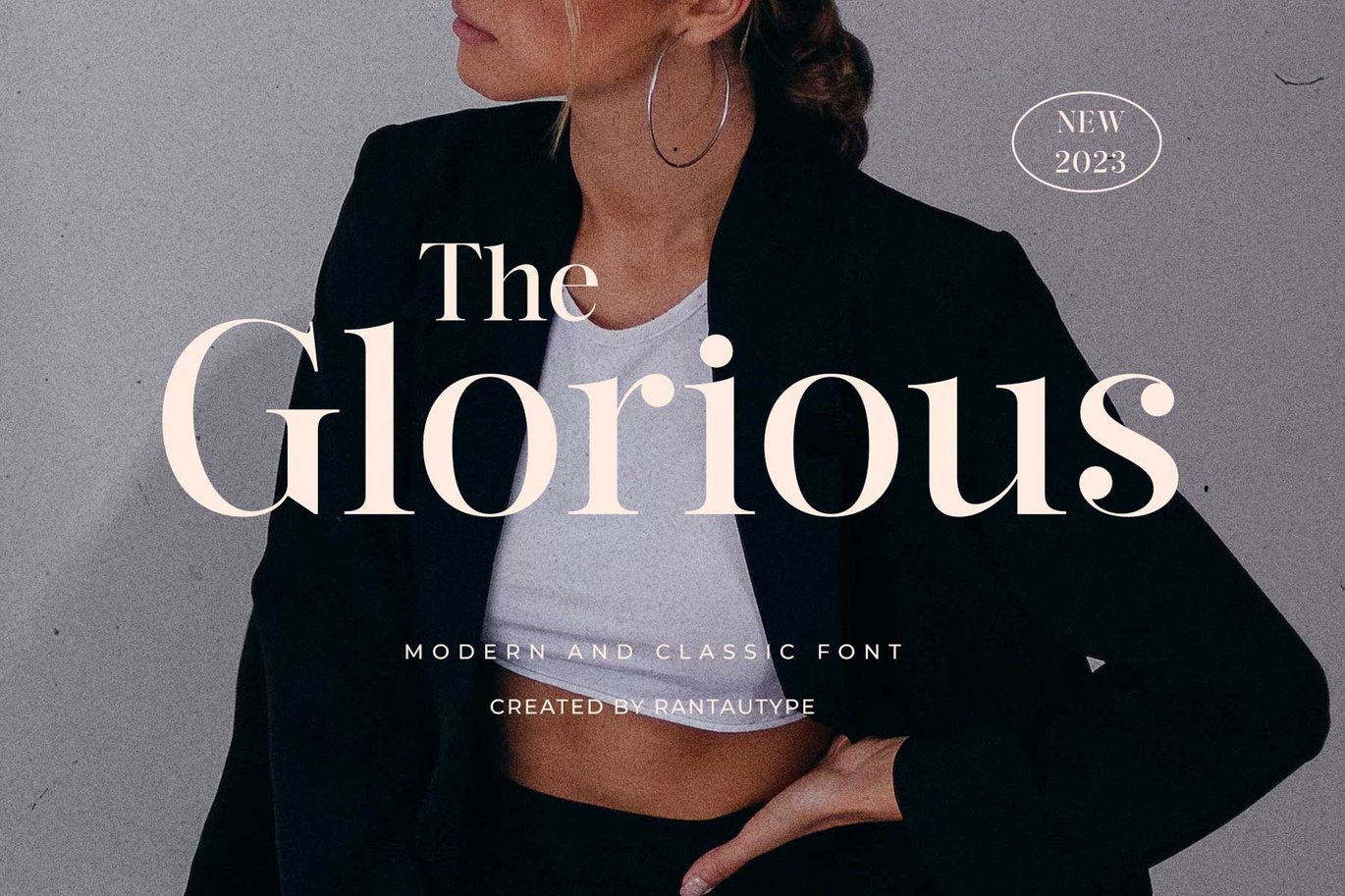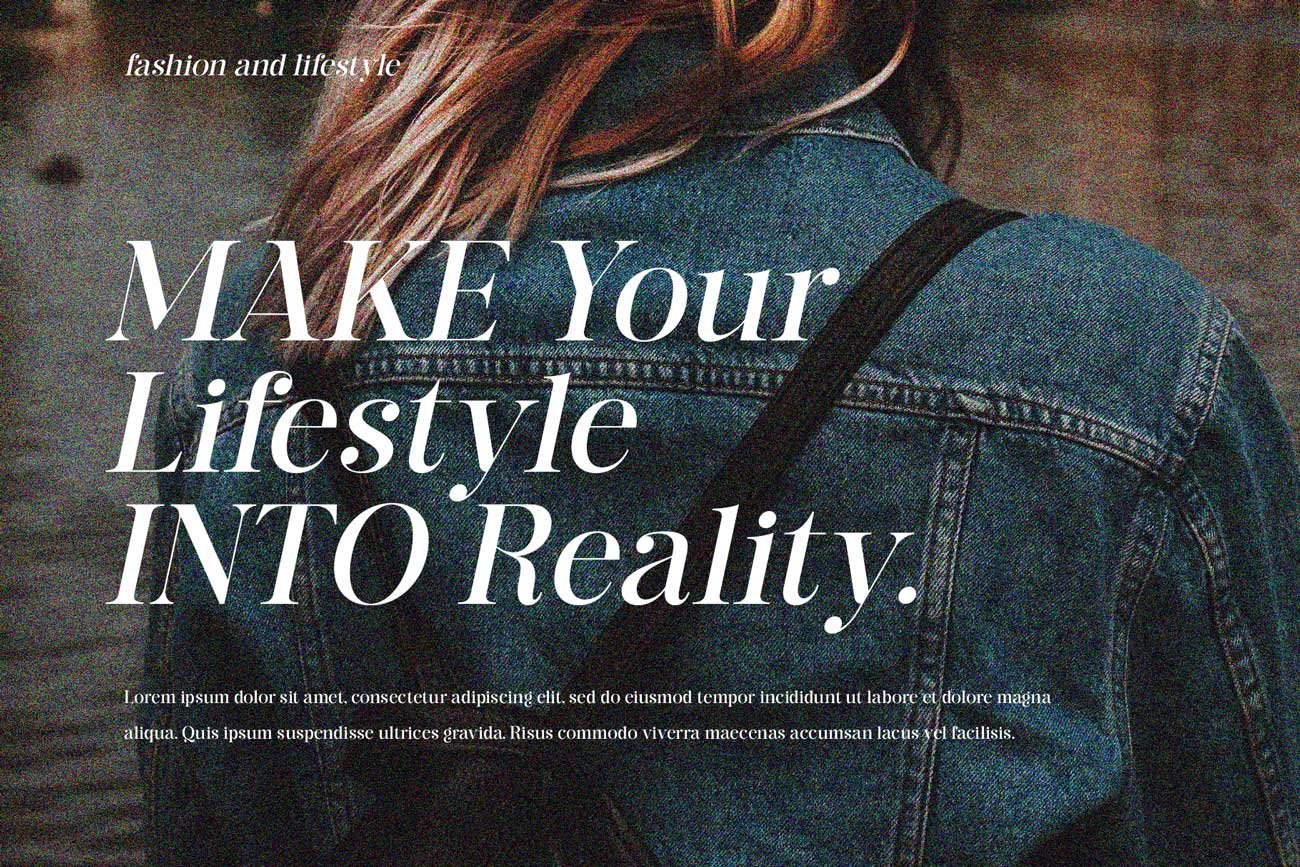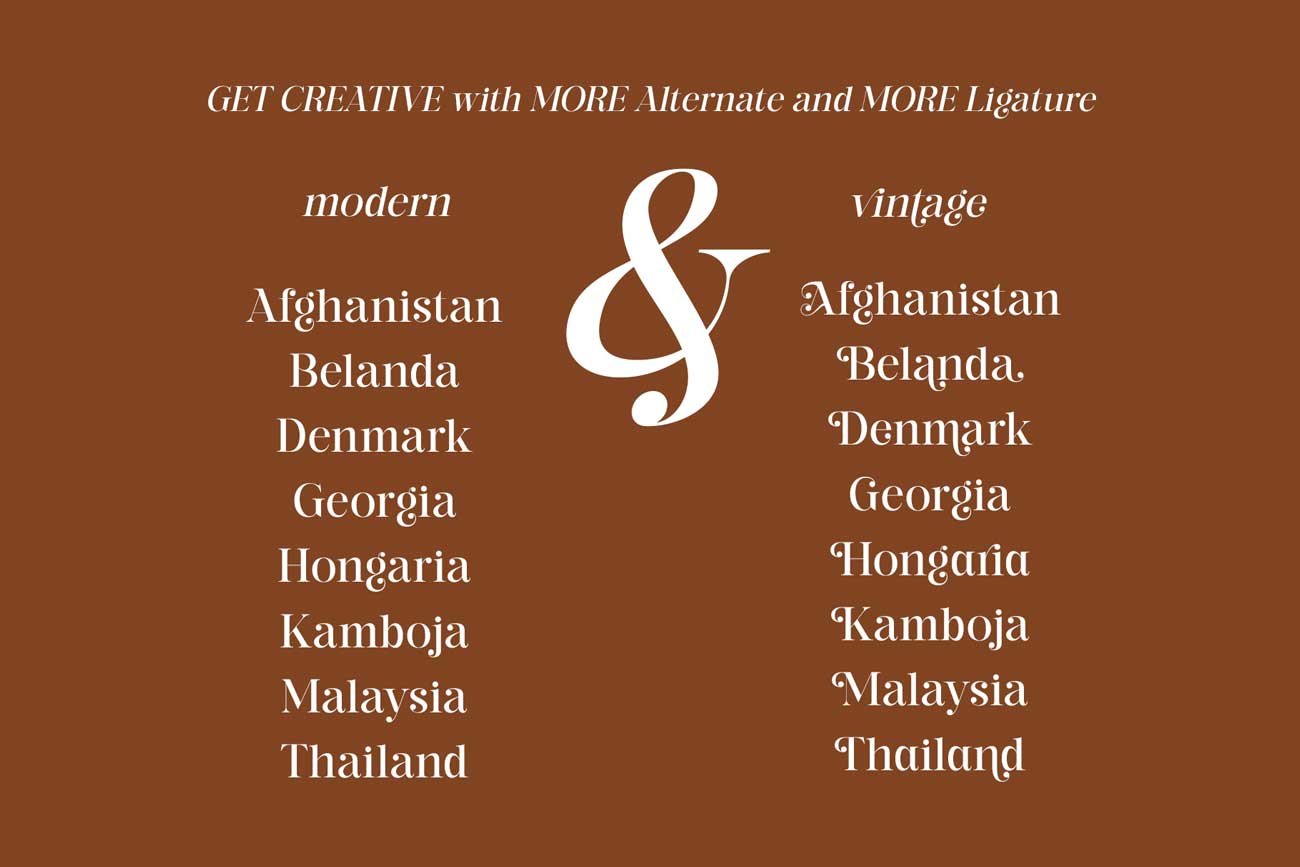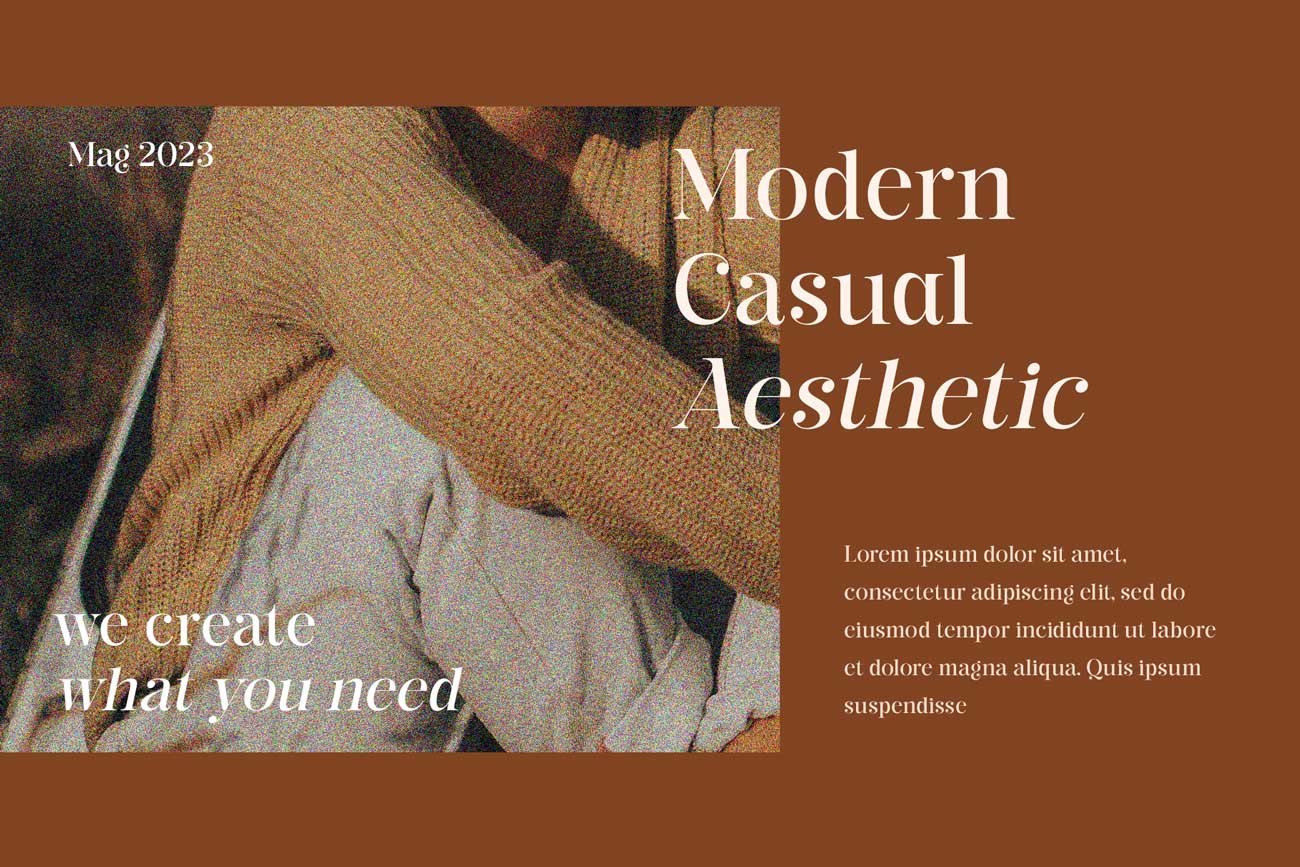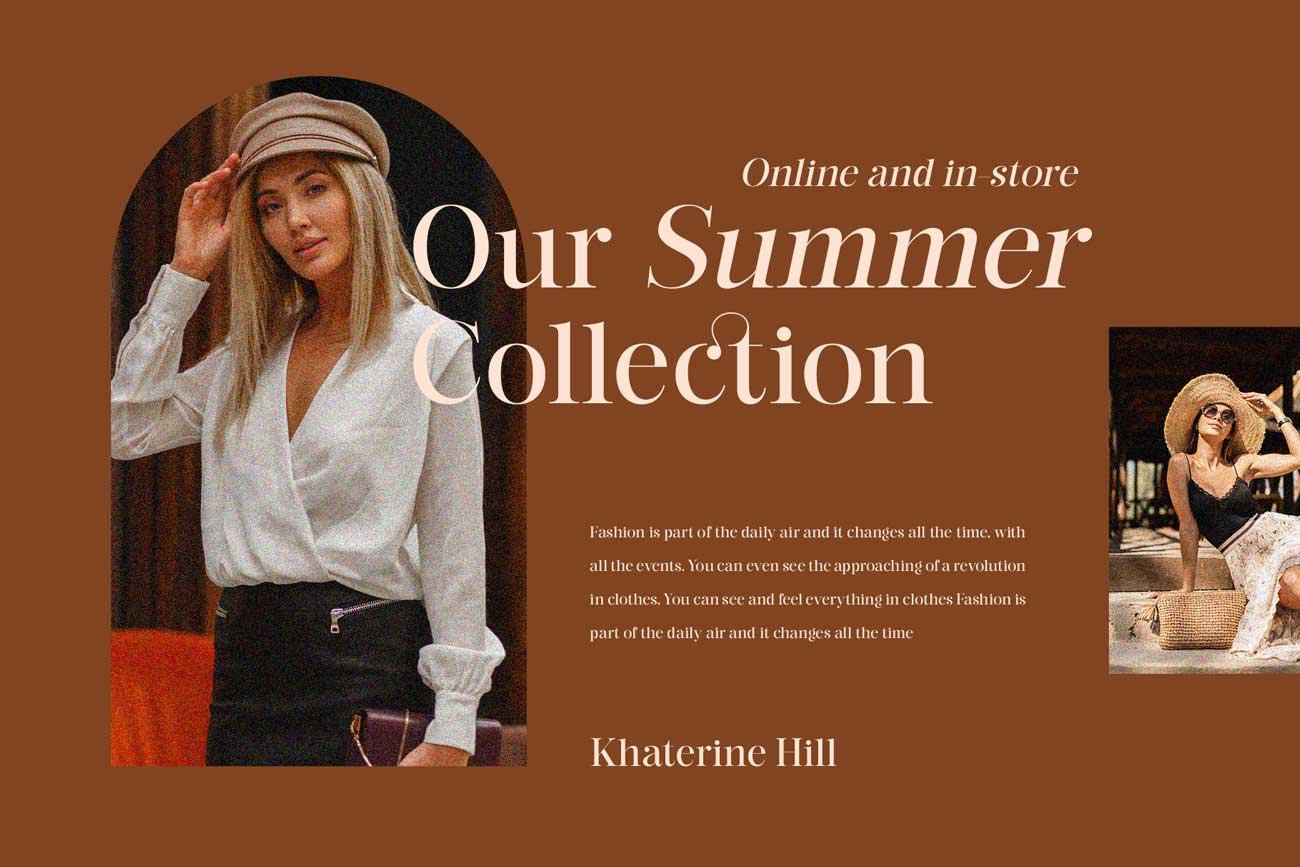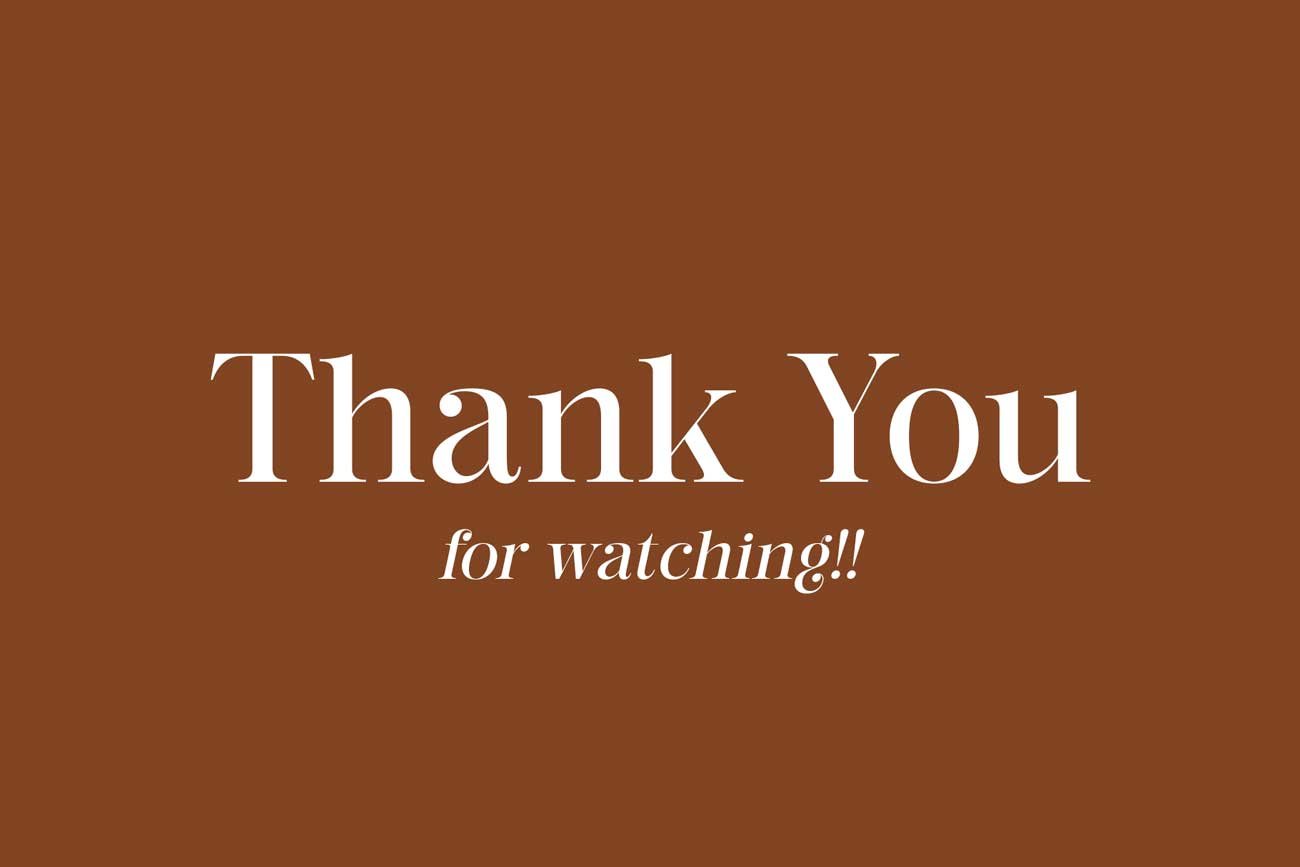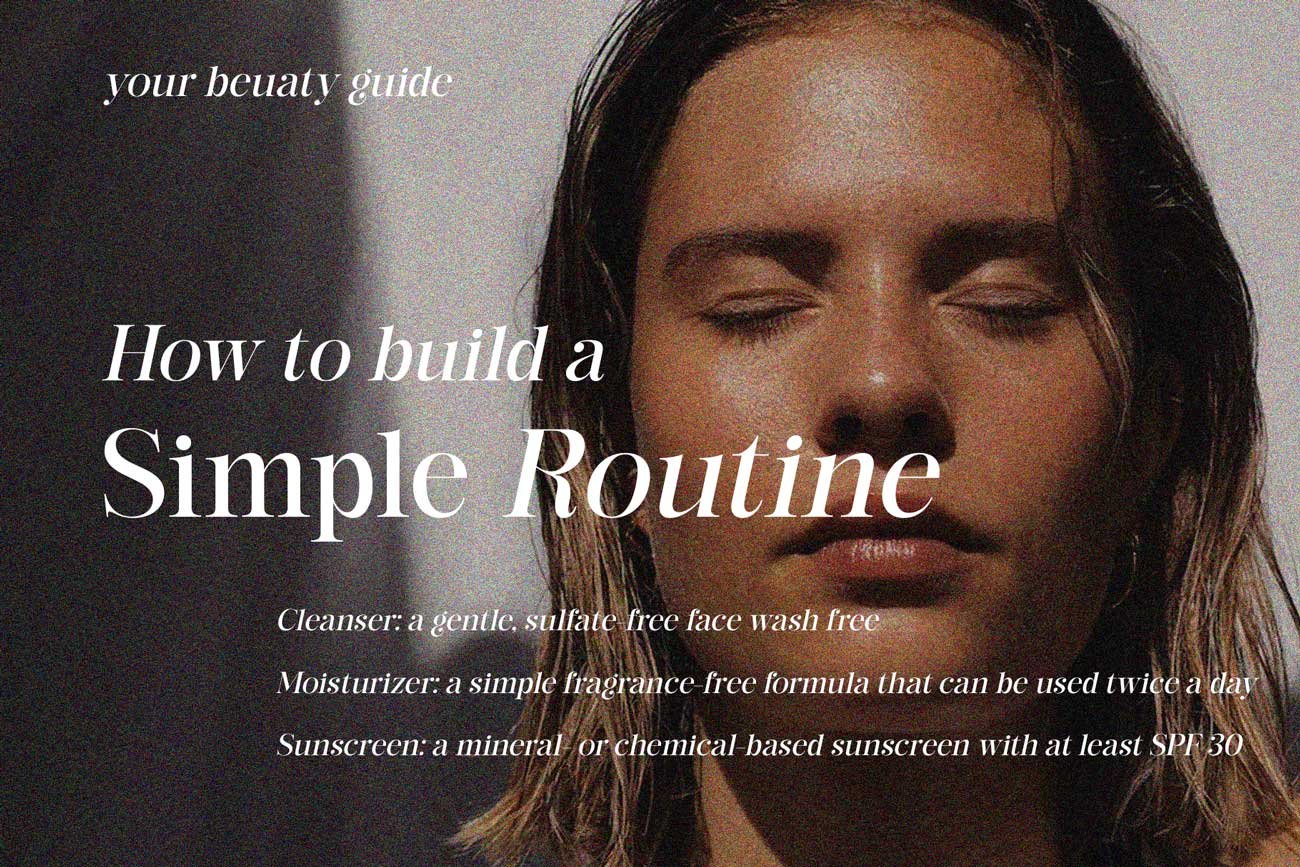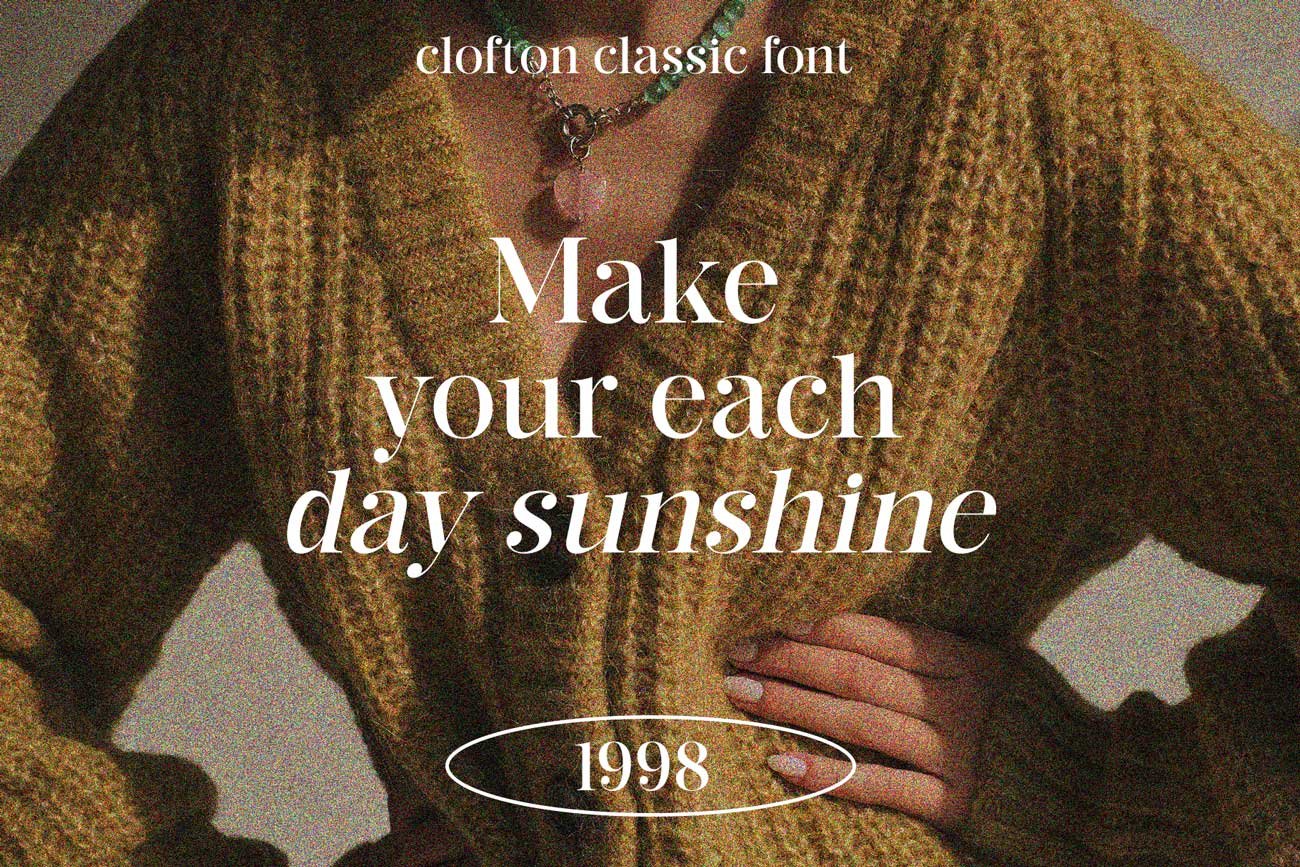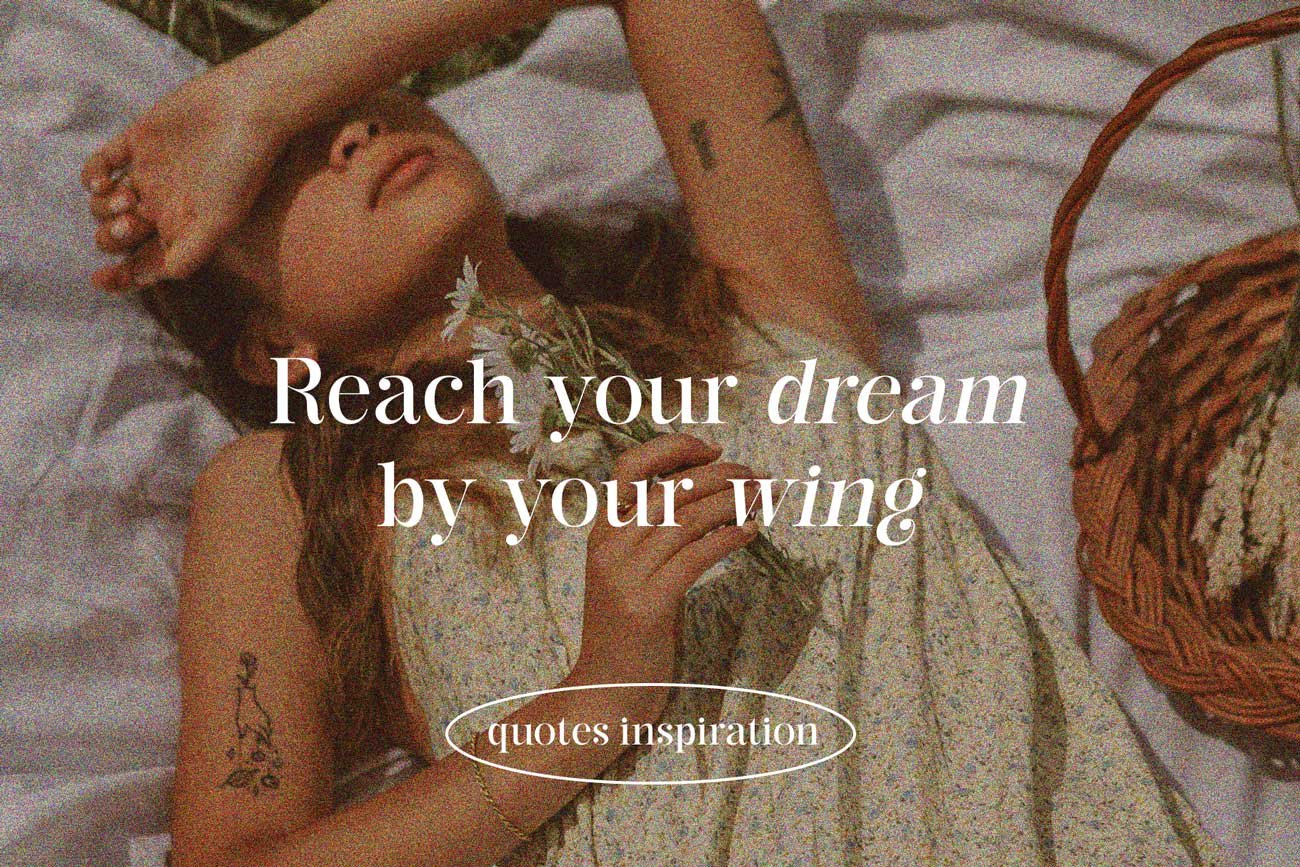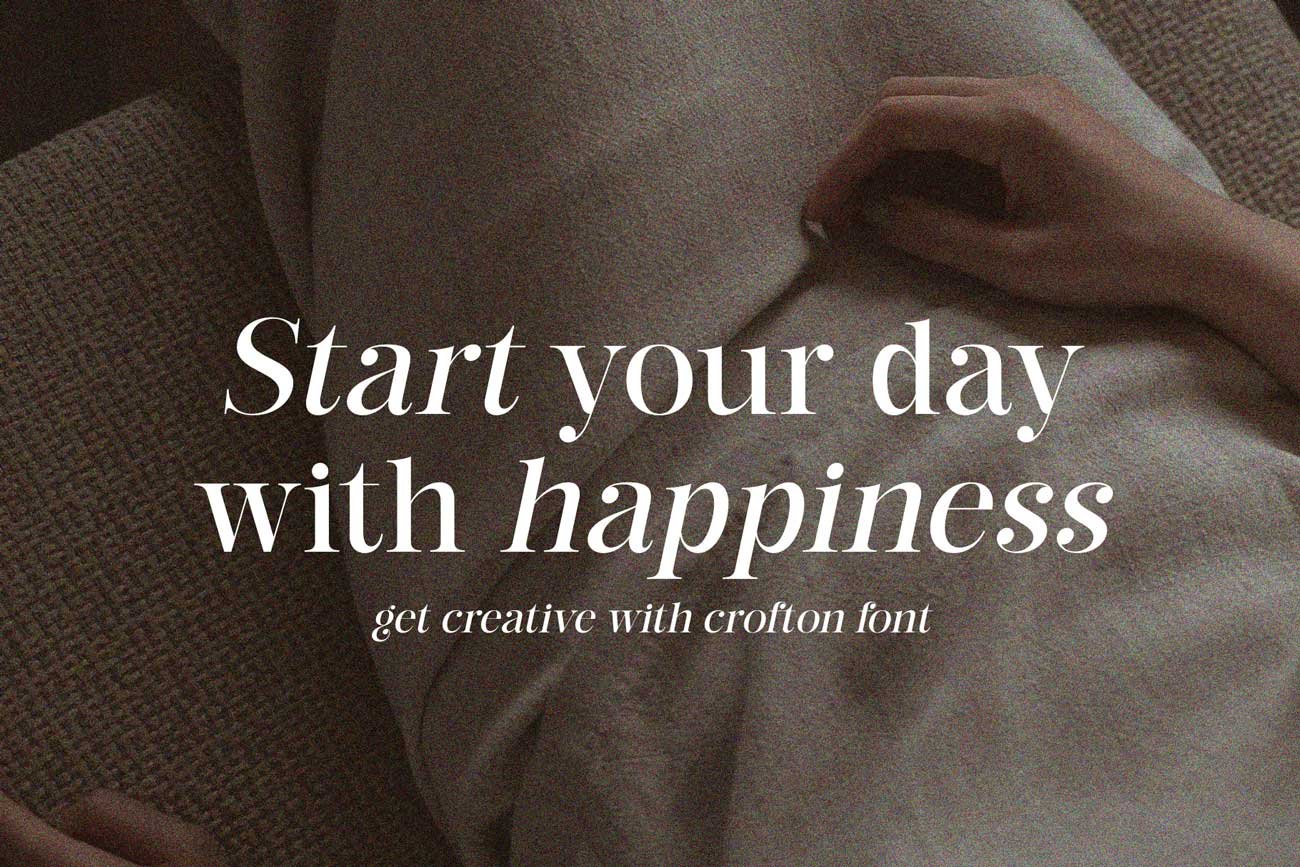
The Glorious Modern and Classic Font
Introducing modern feat classic font “The Glorious”, The Glorious is a beuatiful upper and lower modern or nostalgic serif – with a complementary italic version.
The alternate can make to classic or stay on modern. it’s to good to make variant on your work. I’ve also love combination the reguler and italic make cool and nostalgic.
Let’s make nostalgic with The Glorious
- Alternate and ligature